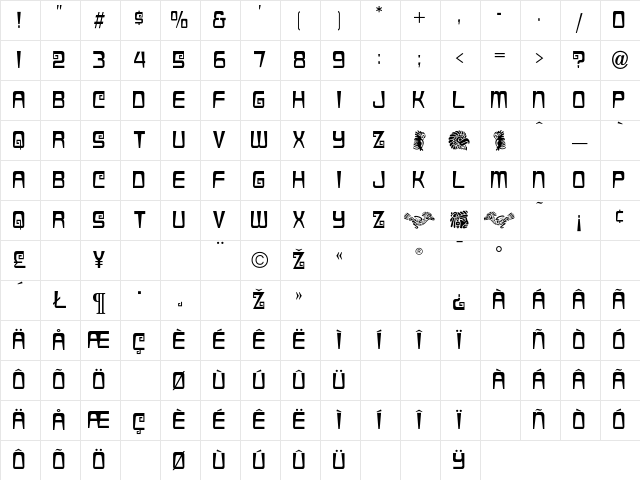
Complete AztecaCondensed Regular glyph index. Displaying only characters natively supported by AztecaCondensed Regular font.
AztecaCondensed is a composed and adaptable typeface that performs quietly and consistently across a wide range of design contexts. Its narrow stance lets it pack a punch even in space-constrained designs.